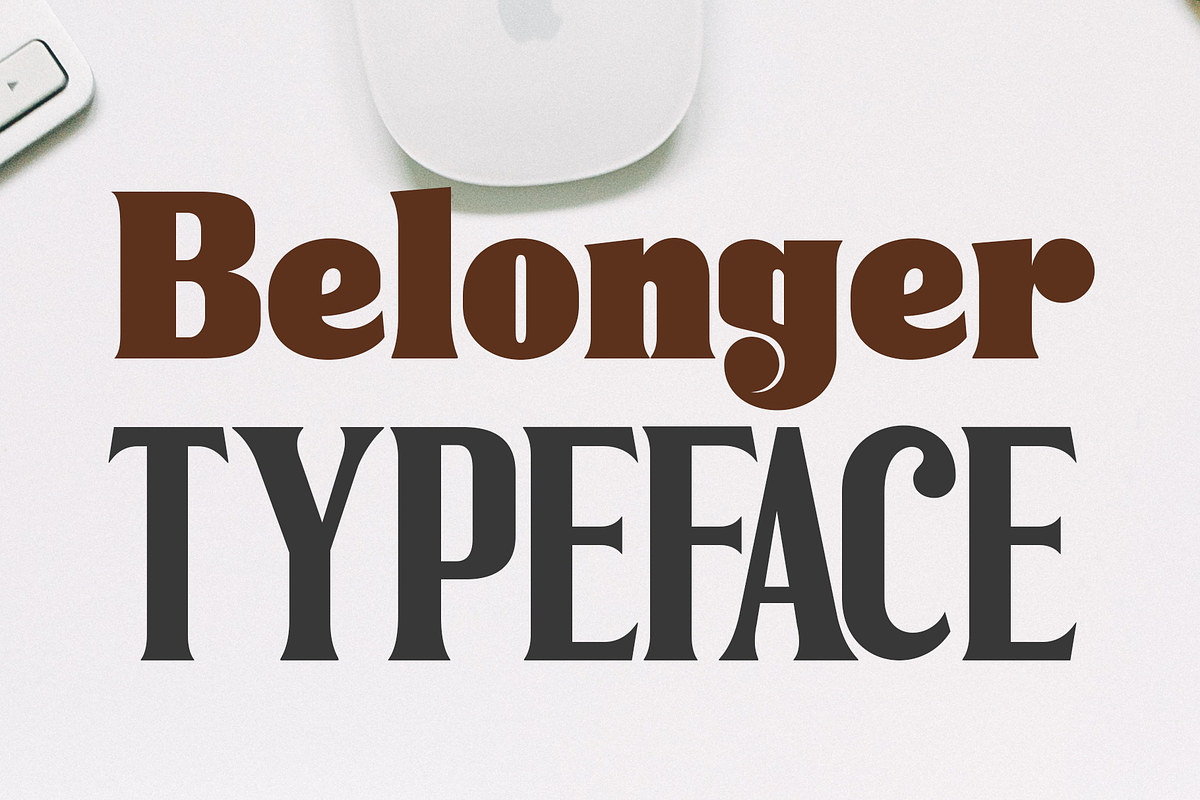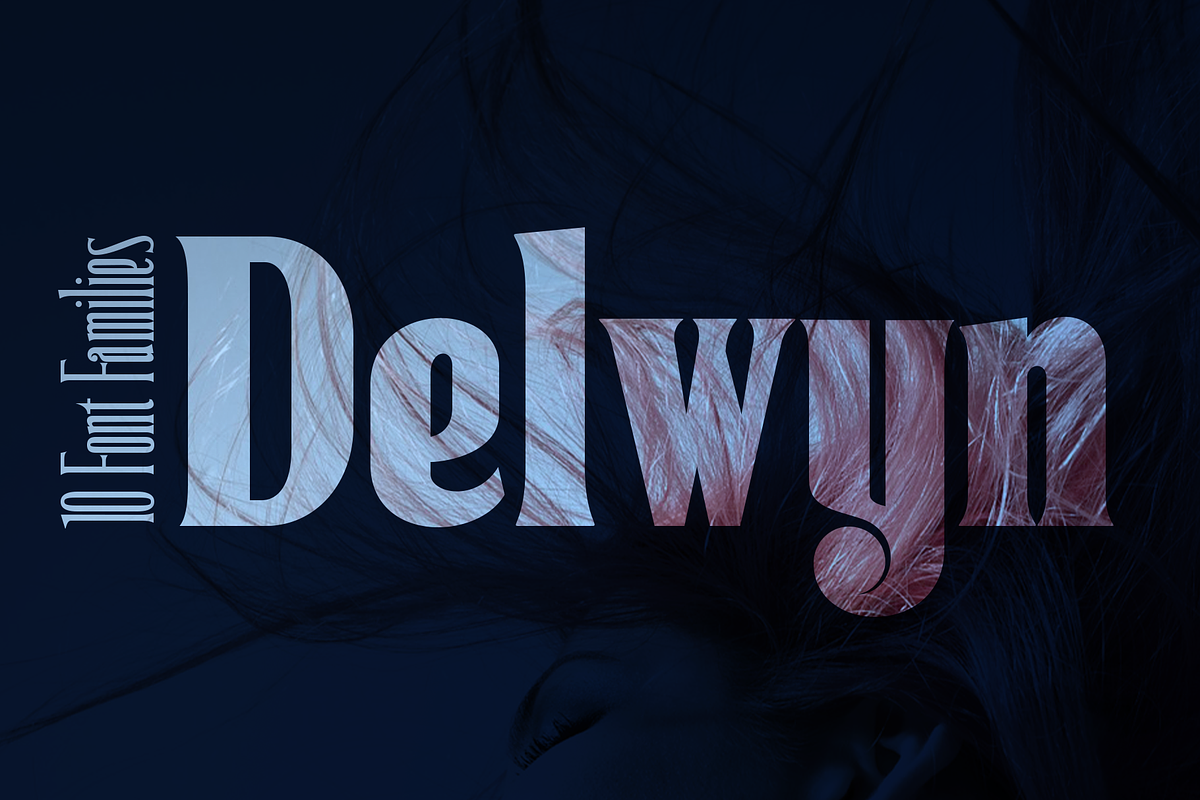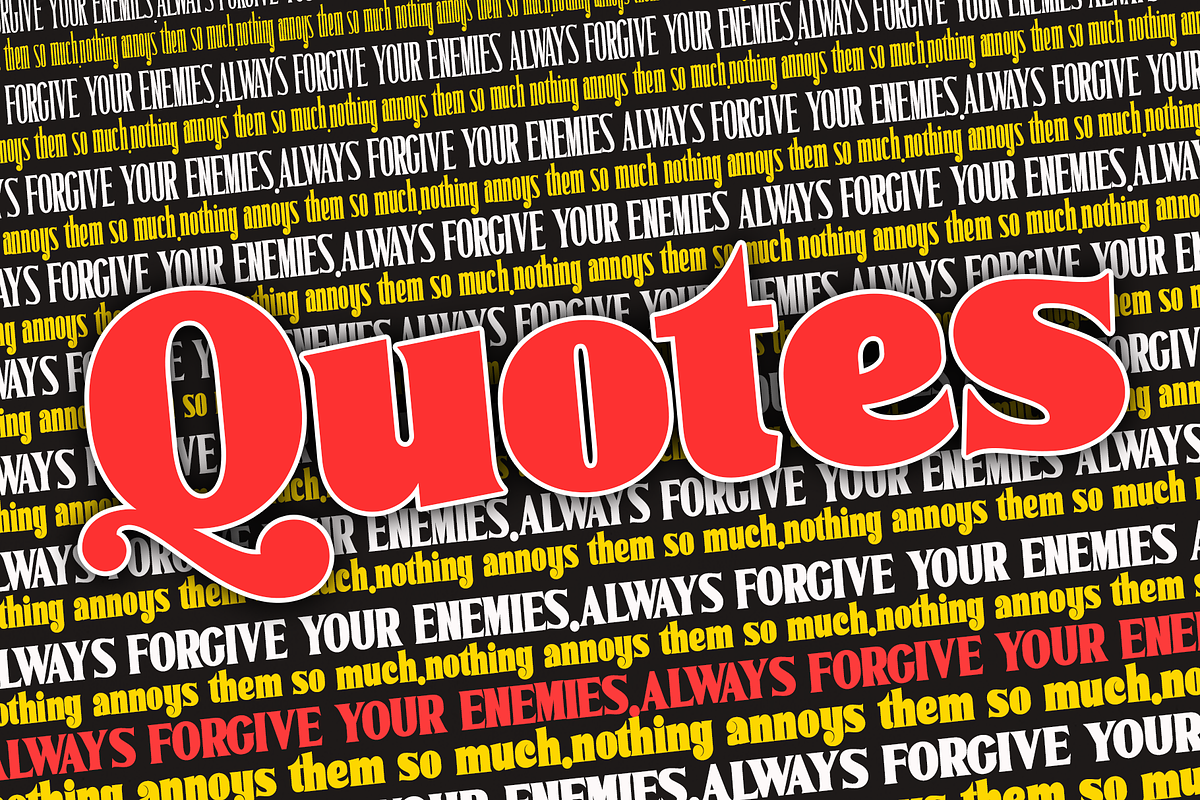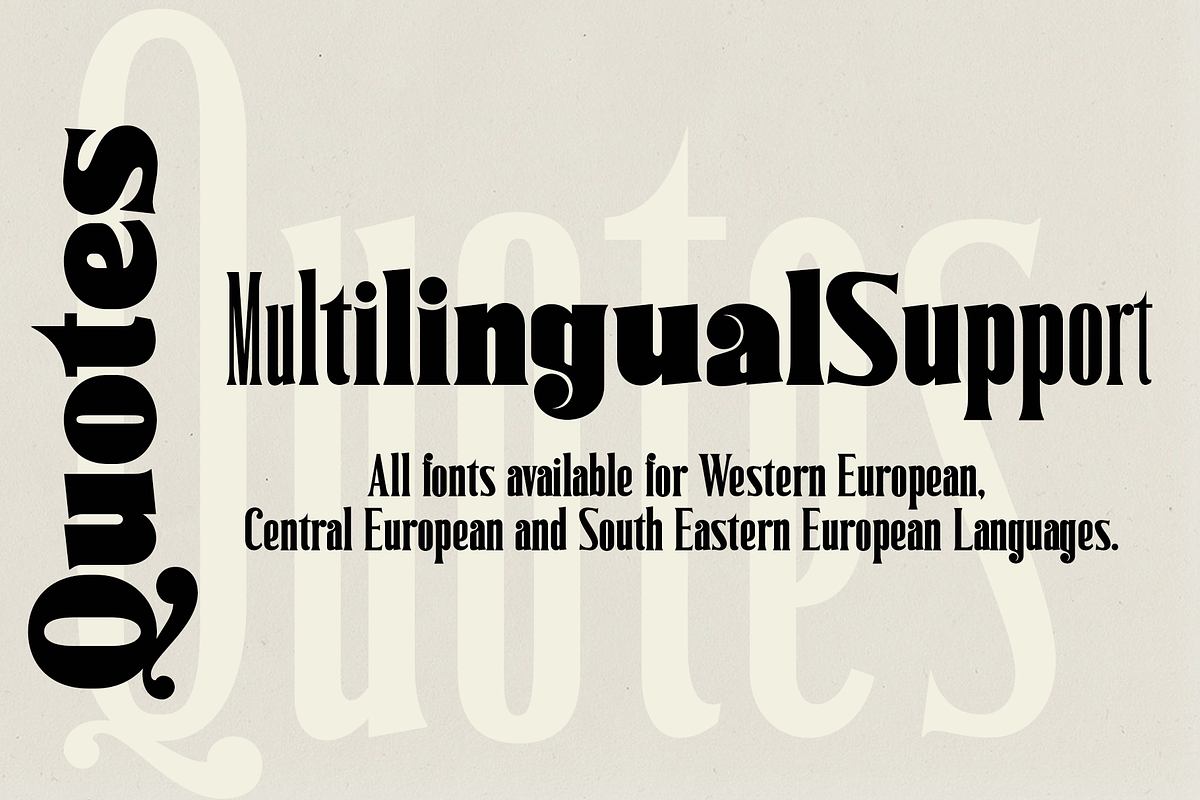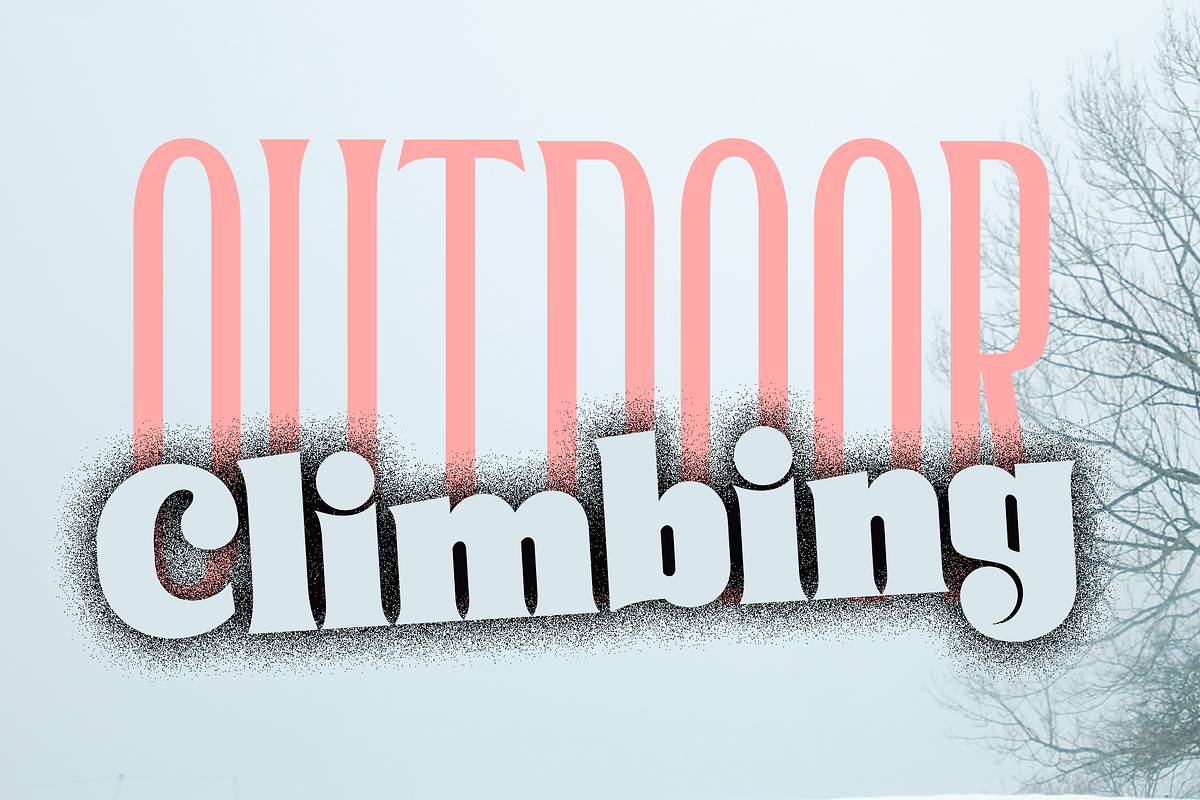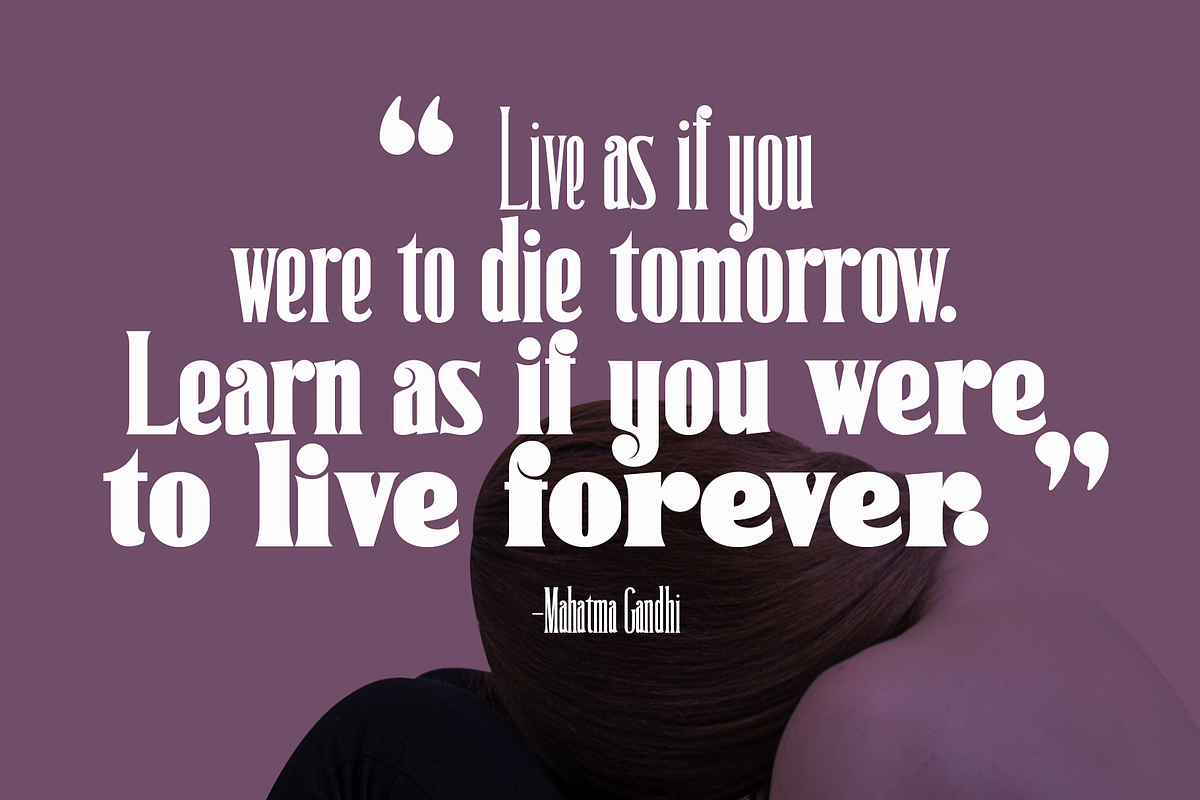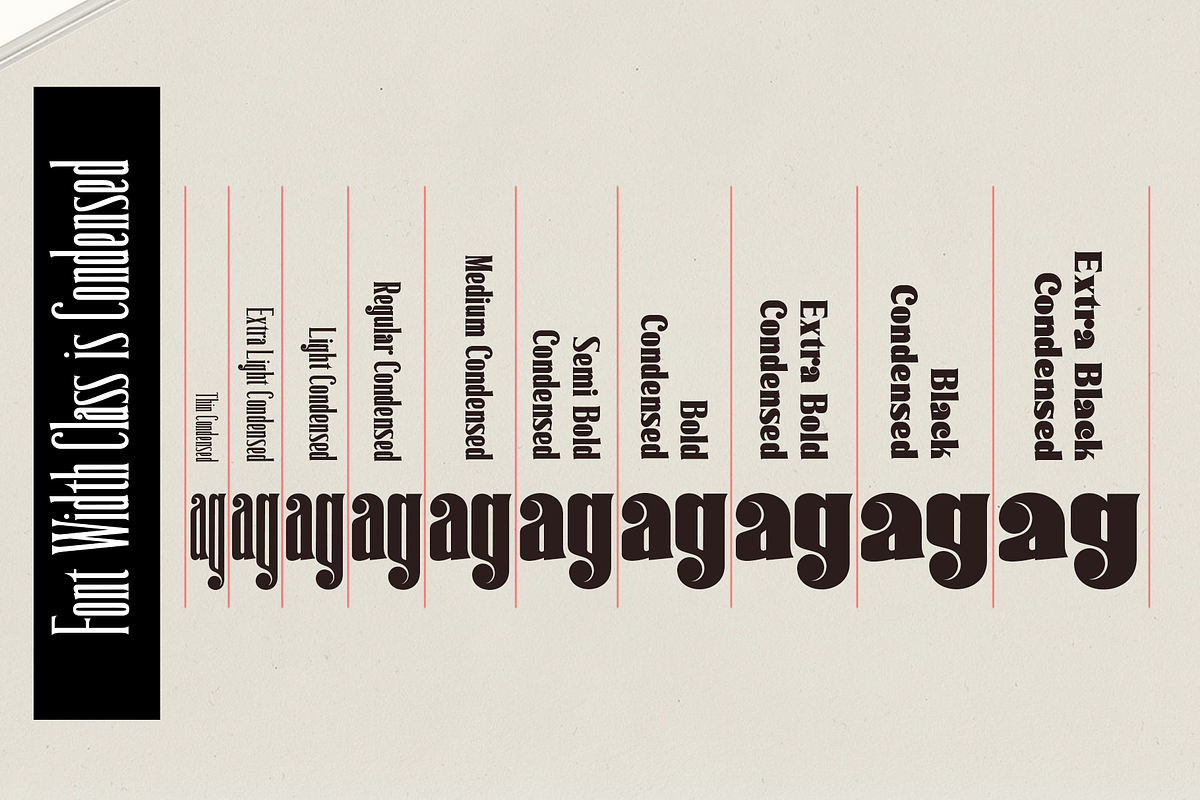
Delwyn Family
Delwyn is a Serif font family, which has a condensed and explicit character with 10 variants, namely; Thin, Light, Extra Light, Regular, Medium, Semi Bold, Bold, Extra Bold, Black and Extra Black.
Delwyn gives a clear and elegant look to logos, quotes, headings, wedding invitation, t-shirt, letterhead, lable, news, posters, badges, magazines, films. etc.
Delwyn is a versatile typography filled with the character you want. with Marston you work.Marston has standard styles, Stylistic Alternates and ligatures. and includes upper and lower case letters, numbers and punctuation marks.
Multilingual support for various languages including: French, German, Spanish, Portuguese, Italian, Dutch, Finnish, Swedish, and more. The different weights give you full range to explore a whole host of applications, while the outlined fonts give a real modern feel to any project.OpenType features can be accessed by using OpenType smart programs such as Adobe Photo Shop, Adobe Illustrator, Adobe Indesign, Corel Draw and Microsoft Office. can also be accessed through the character map****